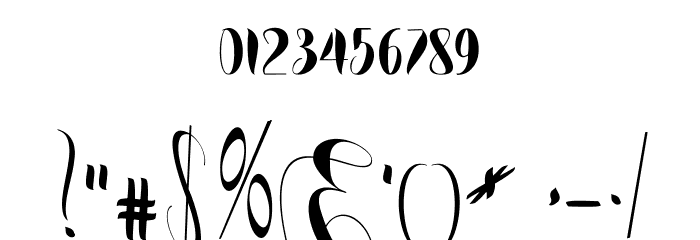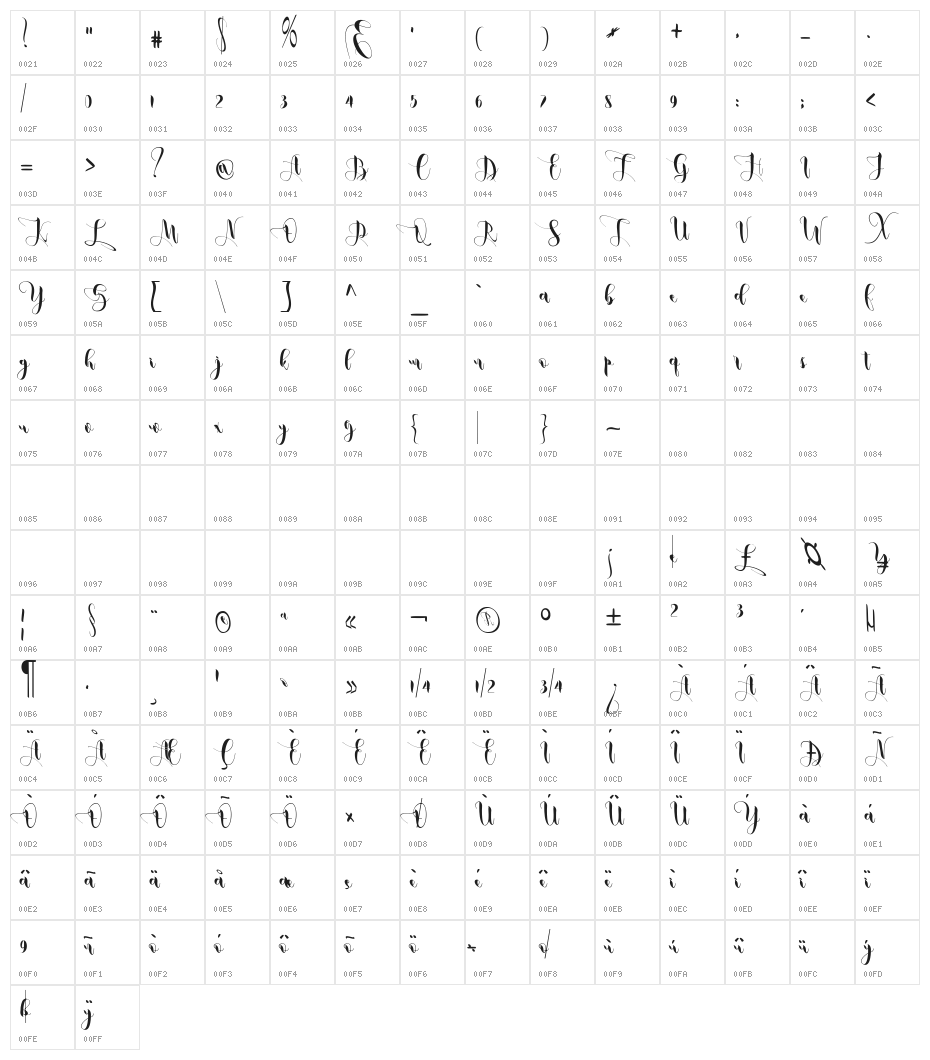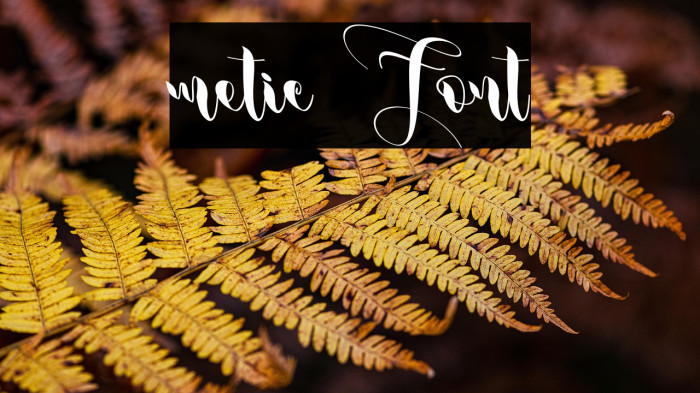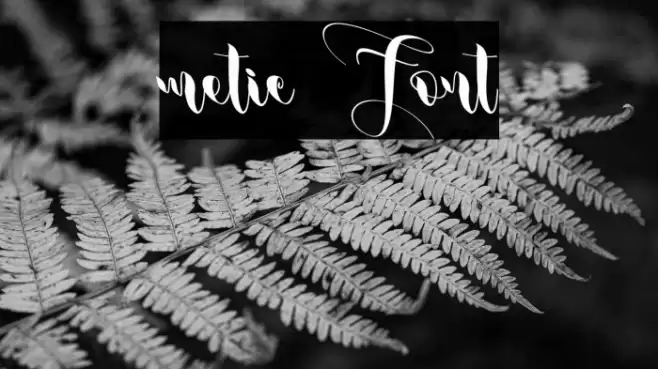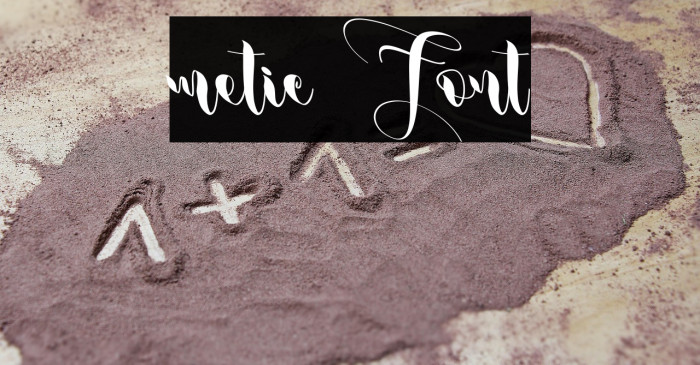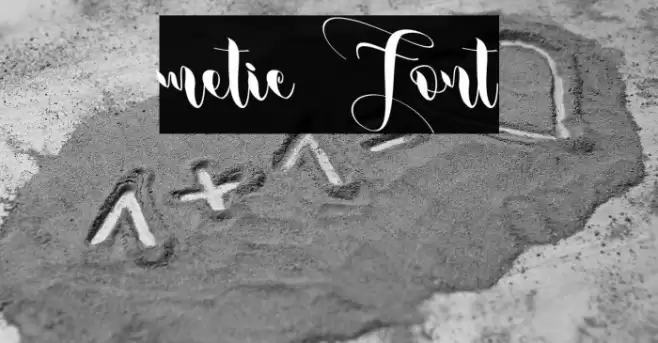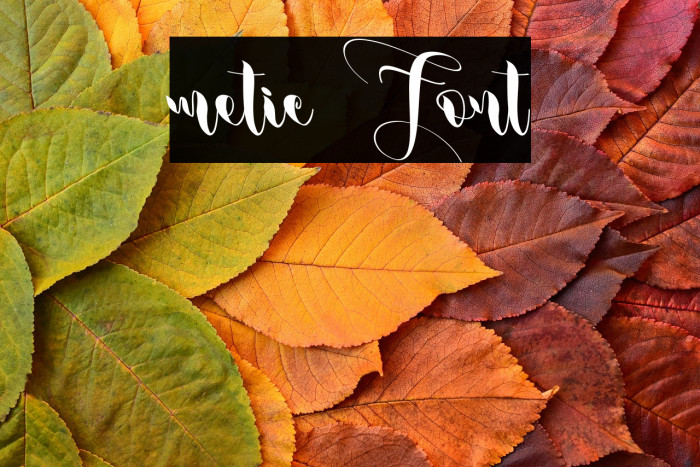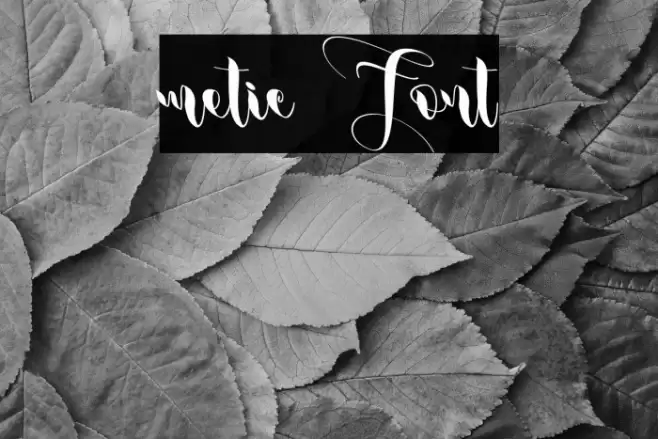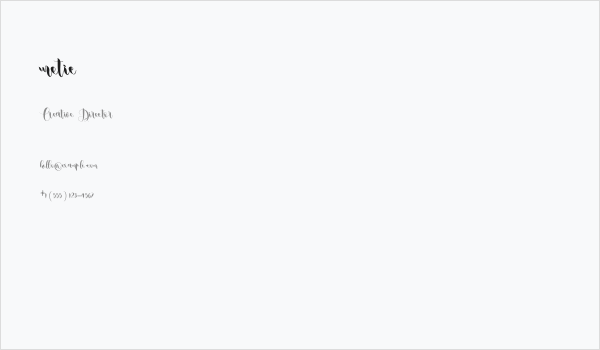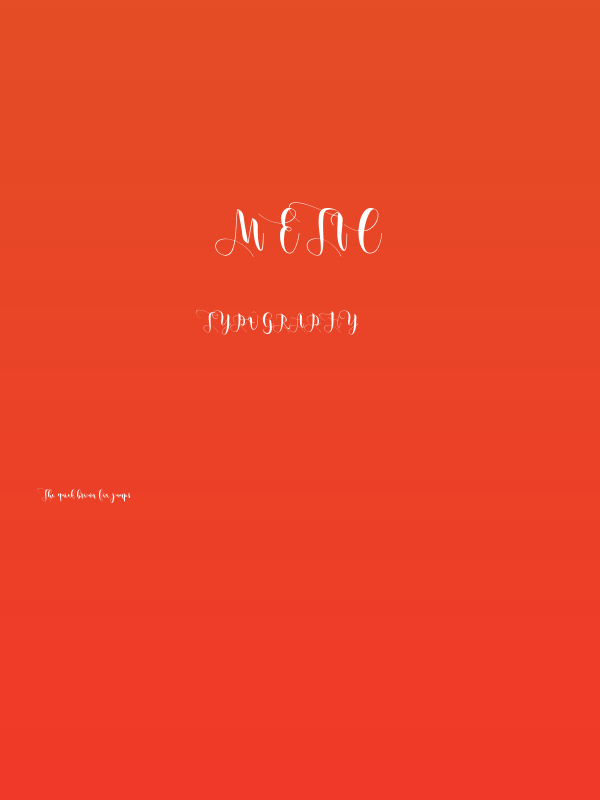
metic Font
metic Description
This elegant and flowing script font features intricate swirls and loops, giving it a sophisticated and artistic appearance. The uppercase letters are adorned with elaborate flourishes, while the lowercase letters maintain a graceful and fluid form. The numerals and special characters are designed with the same attention to detail, ensuring a cohesive look throughout. This font's ornate style makes it ideal for projects that require a touch of elegance and creativity.
| Proposed Projects | Ideal for wedding invitations, greeting cards, branding, and decorative projects. |